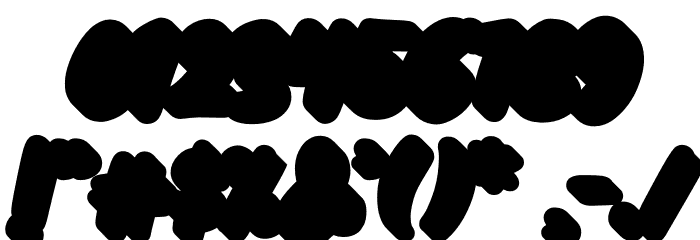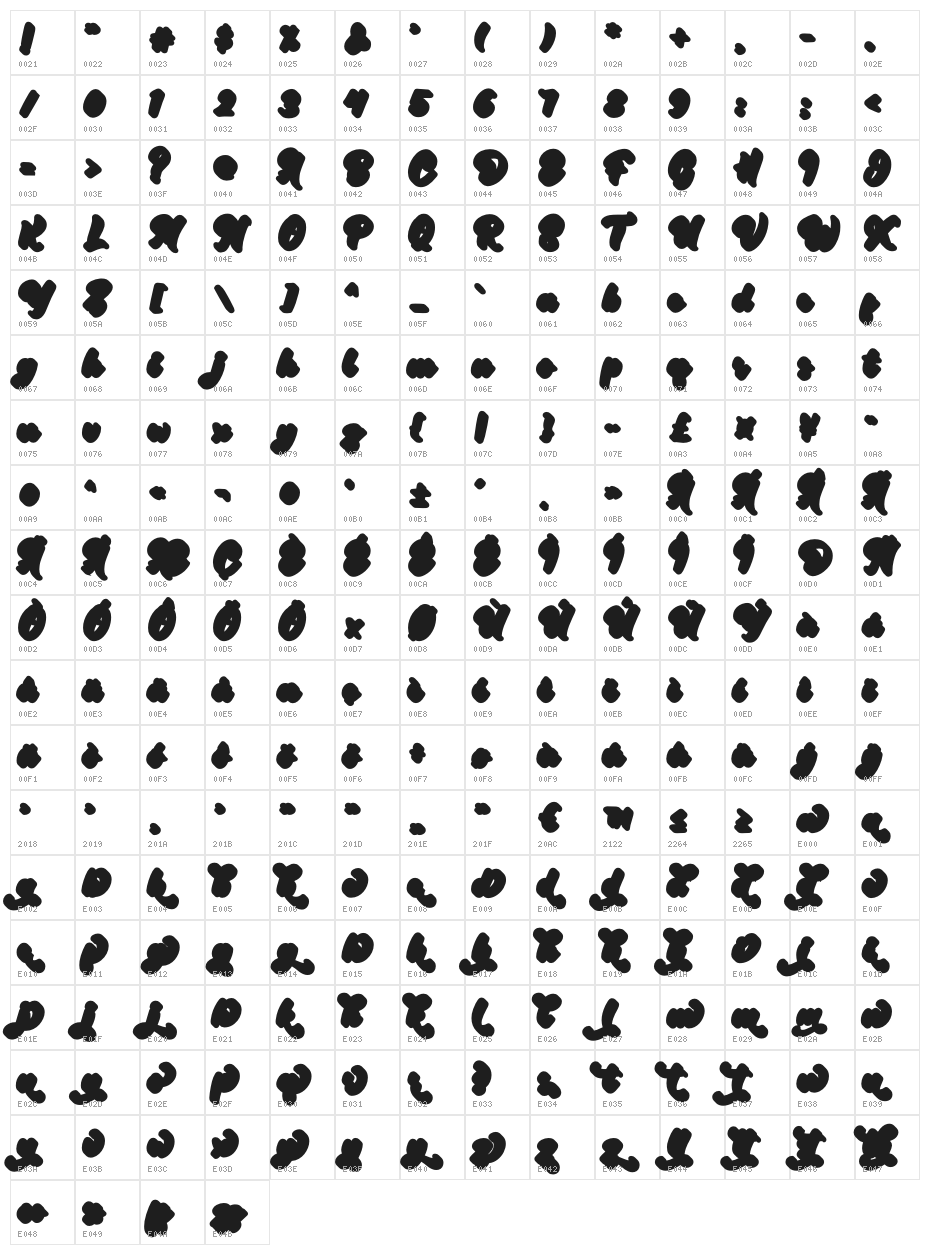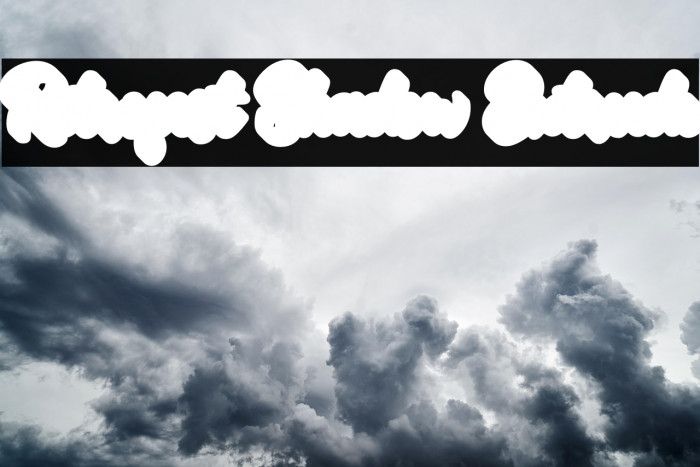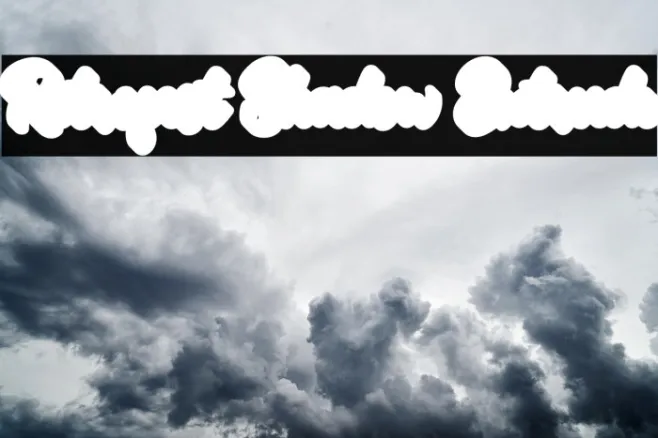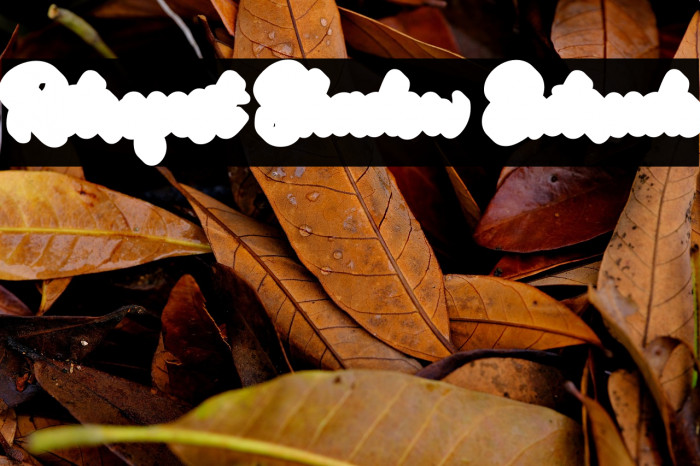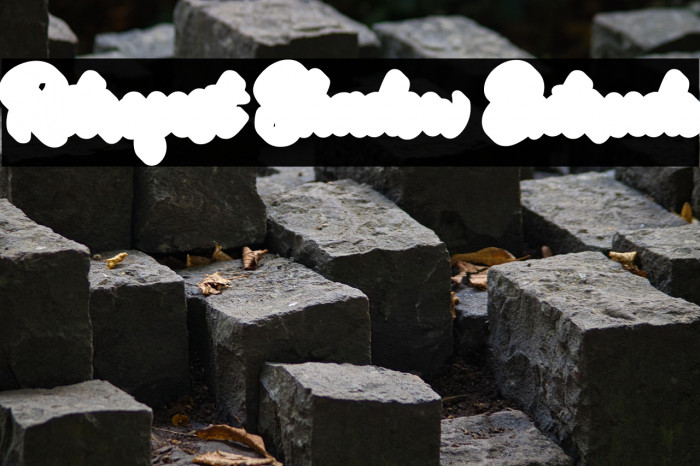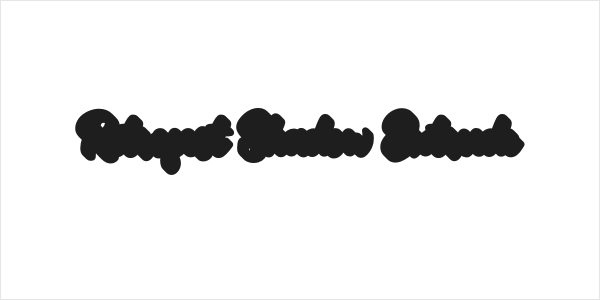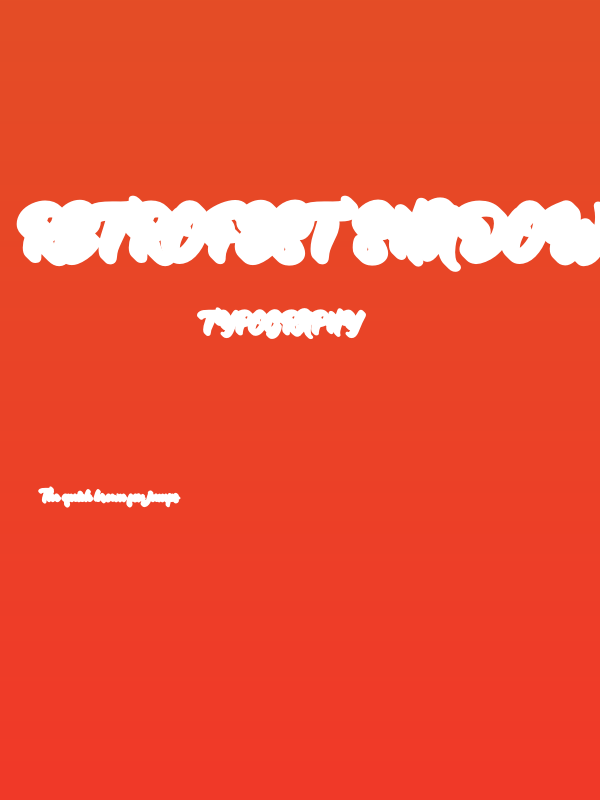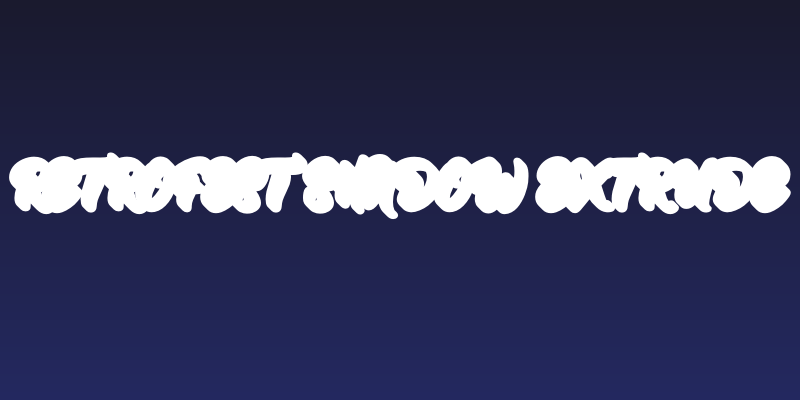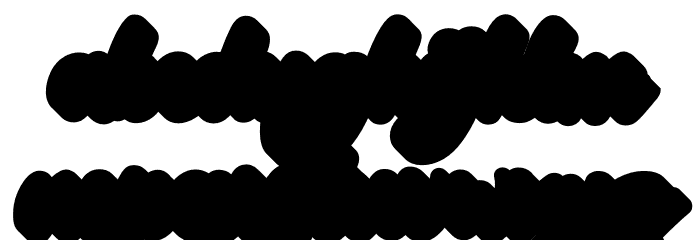
Retrofest Shadow Extrude Font
Retrofest Shadow Extrude Description
This font features a bold, shadowed style with an extruded effect that gives it a three-dimensional appearance. The characters are thick and rounded, creating a playful and dynamic look. The shadowing adds depth, making it stand out on any background. The font is highly decorative, with a retro vibe that evokes a sense of nostalgia. It is suitable for eye-catching designs where the text needs to be a focal point. The overall style is both fun and impactful, perfect for creative projects.
| Overall Style | Retro, Decorative |
| Proposed Projects | Ideal for posters, logos, retro-themed events, and any design requiring a standout, playful text. |